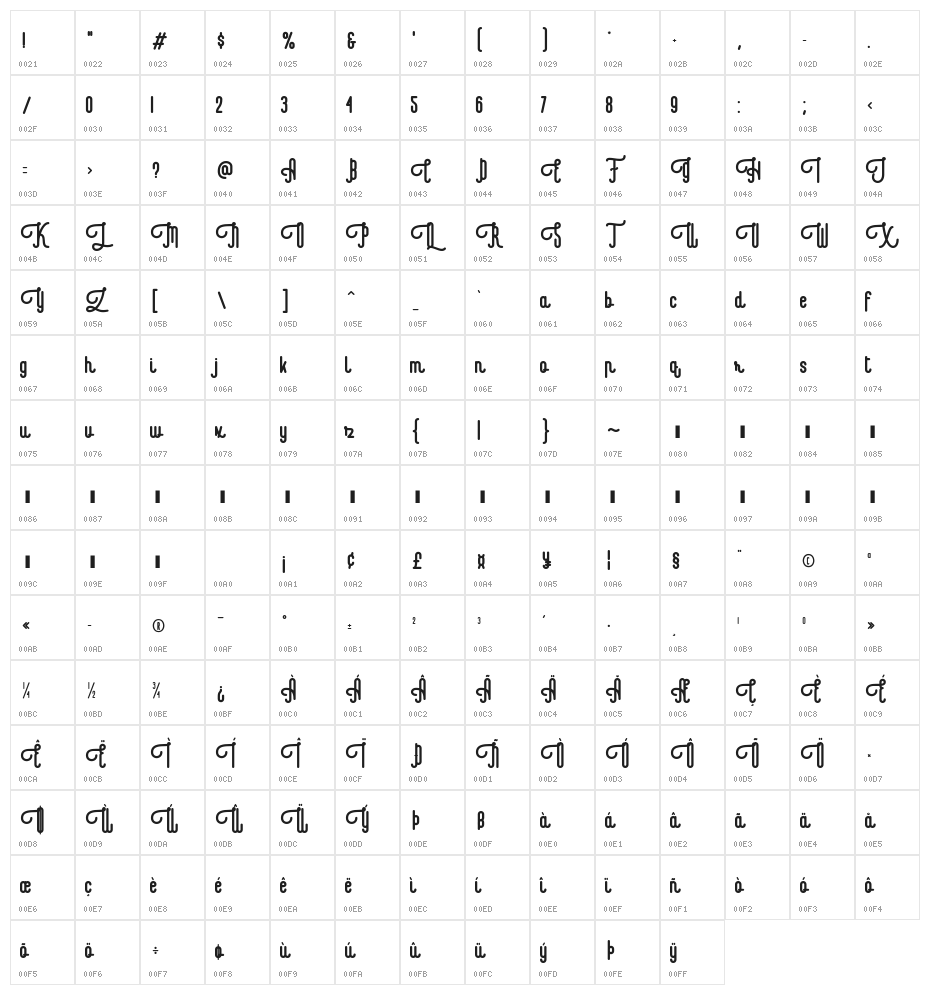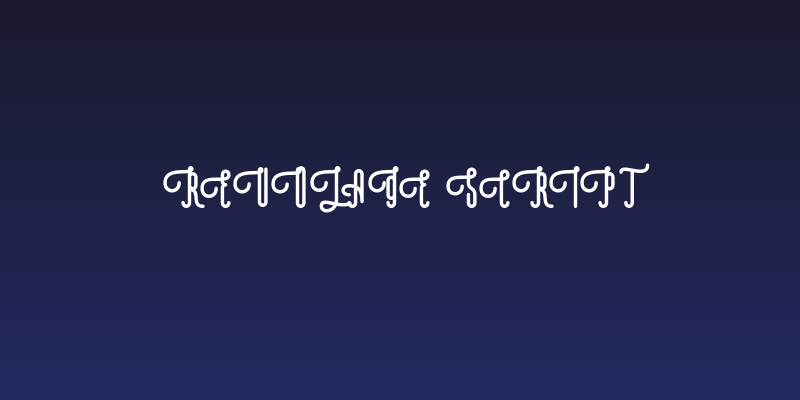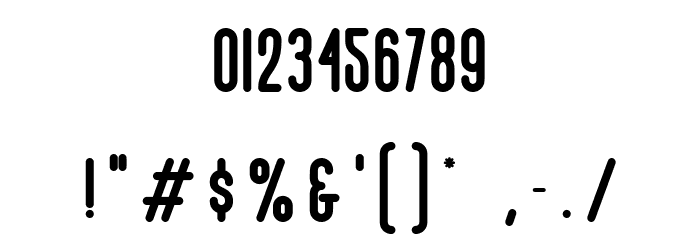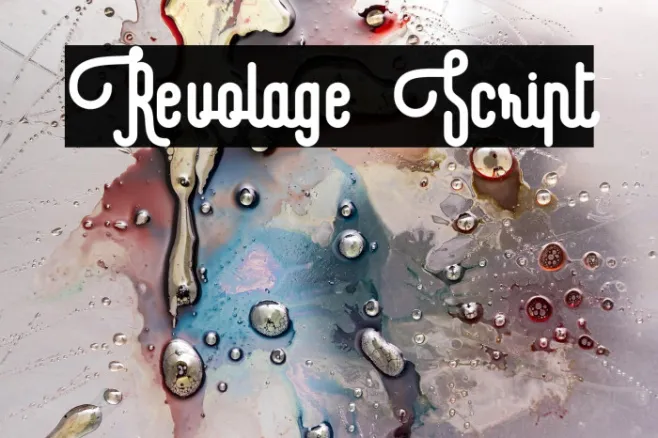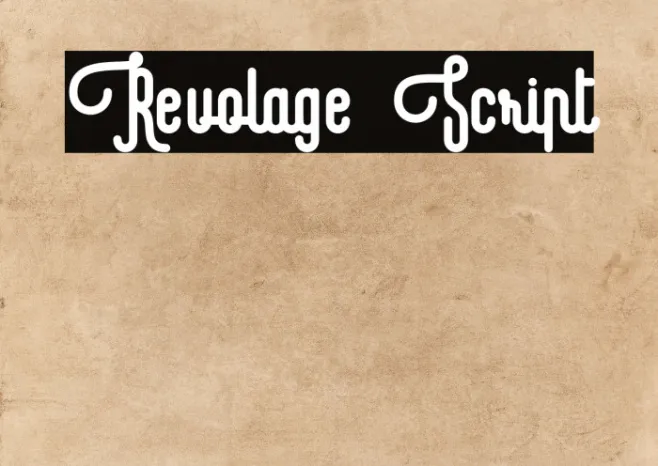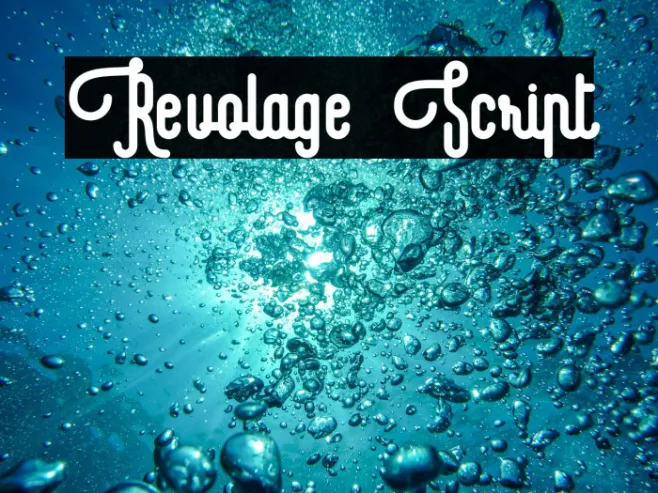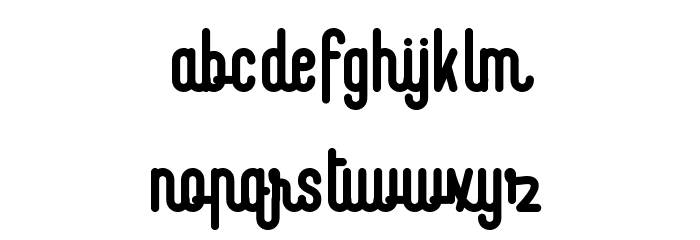
Revolage Script Font
Revolage Script Description
This font features a unique blend of script and decorative elements, characterized by its flowing, interconnected strokes that create a sense of movement and elegance. The uppercase letters are particularly ornate, with loops and swirls that add a touch of sophistication. The lowercase letters maintain a more straightforward script style, providing readability while still retaining the font's artistic flair. The numerals and special characters are designed to match the overall aesthetic, ensuring consistency across all text elements. This font's distinct style makes it ideal for creative projects that require a touch of elegance and personality.